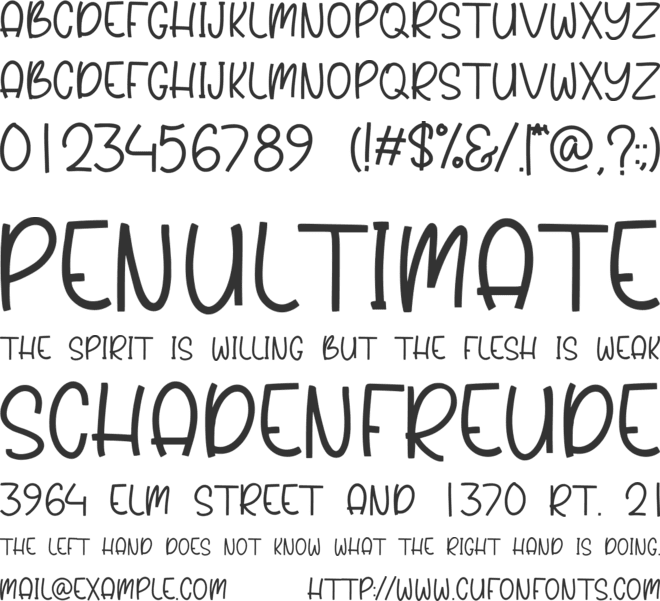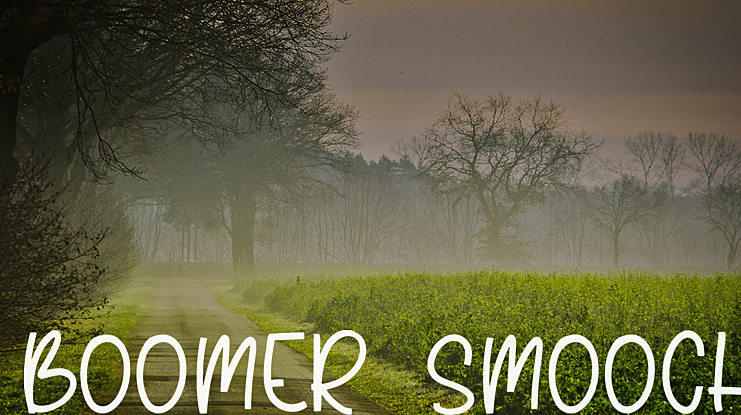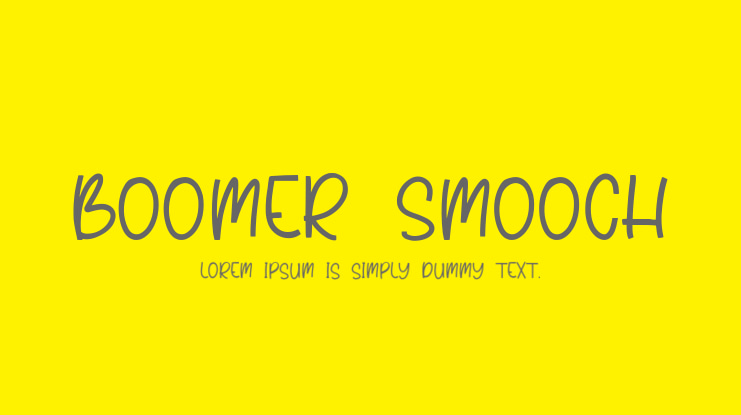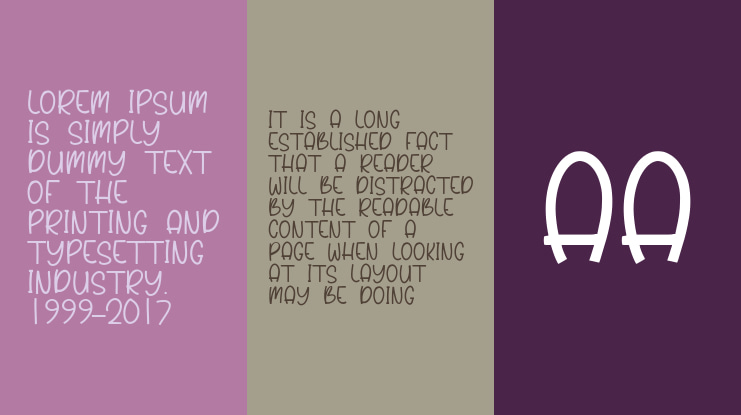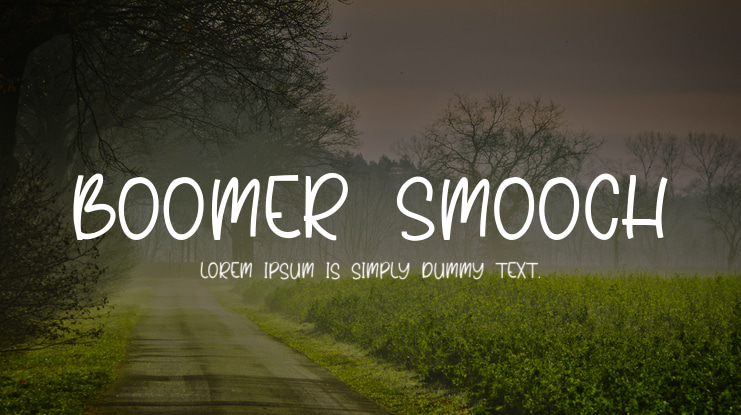
Boomer Smooch Font
Proudly Present, Boomer Smooch
Boomer Smooch is a Fun Handwritten Font
Boomer Smooch is perfect for product packaging, branding project, megazine, social media, wedding, or just used to express words above the background.